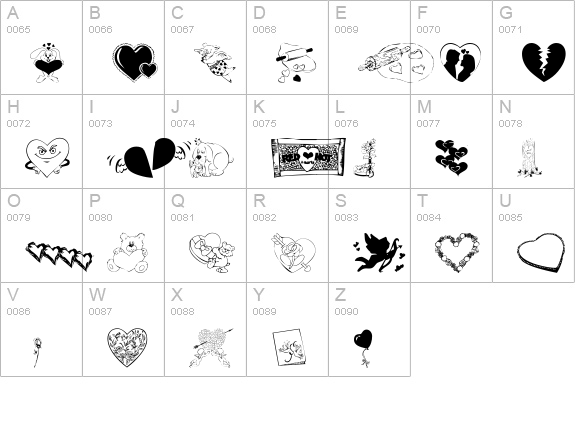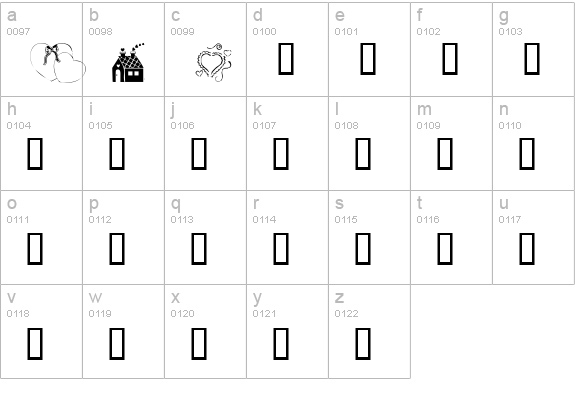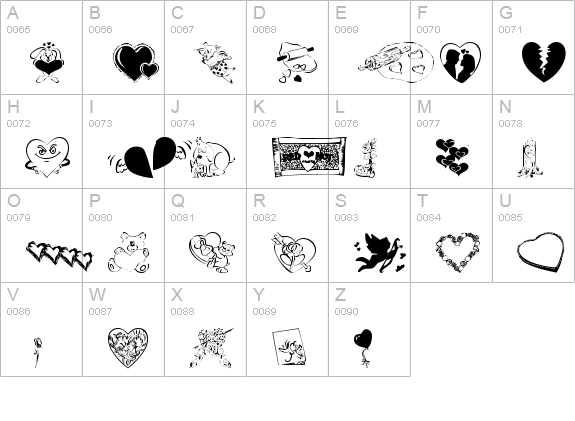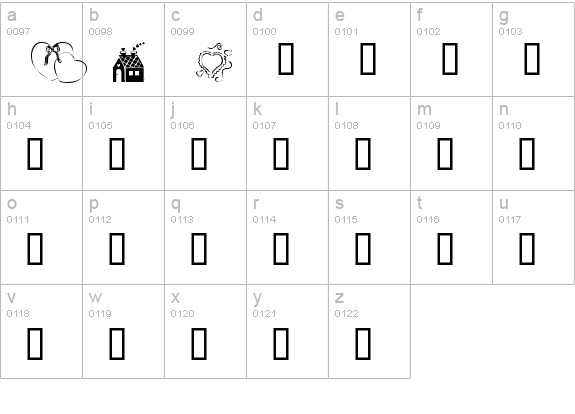
KR Belated Valentine font is a charming and playful typeface perfect for adding a touch of love and whimsy to your designs. With its unique hand-drawn style and decorative flourishes, this font is ideal for creating greeting cards, invitations, posters, and more for Valentine's Day or any romantic occasion. What makes KR Belated Valentine font even more special is that it is available for free! That's right, you can download this delightful font at FontsMarket.com without any cost. Whether you're a designer looking to add a romantic flair to your projects or someone who simply loves beautiful typography, KR Belated Valentine font is sure to capture your heart. Download it now and spread the love with every design you create.